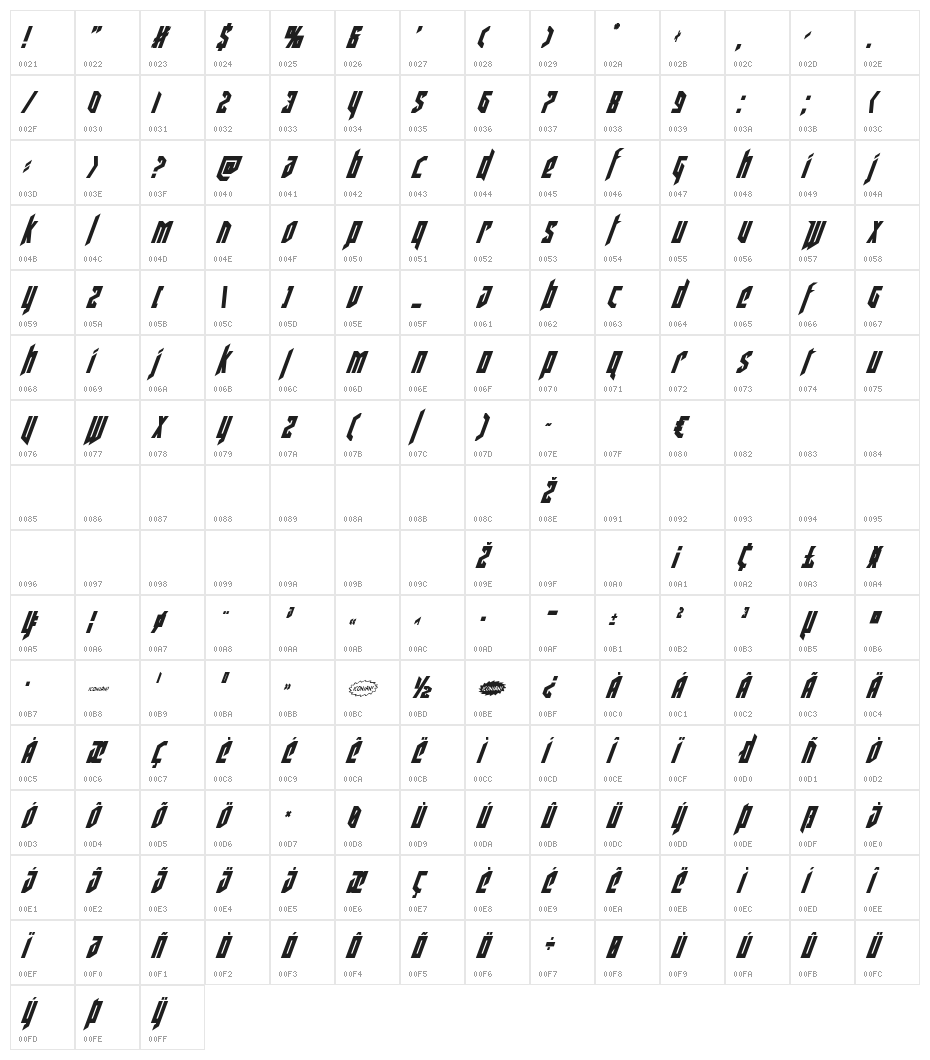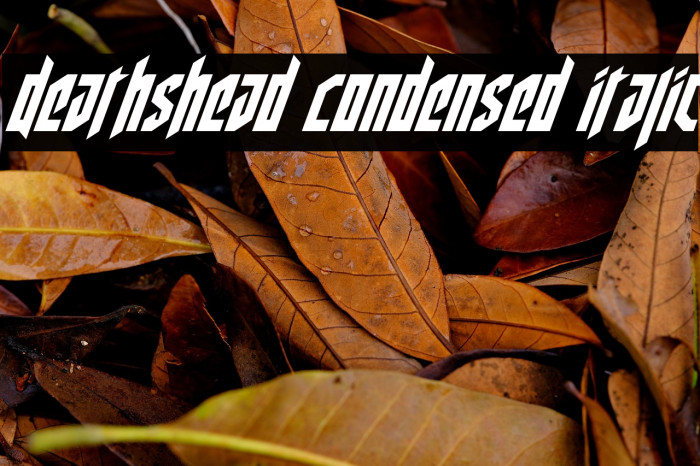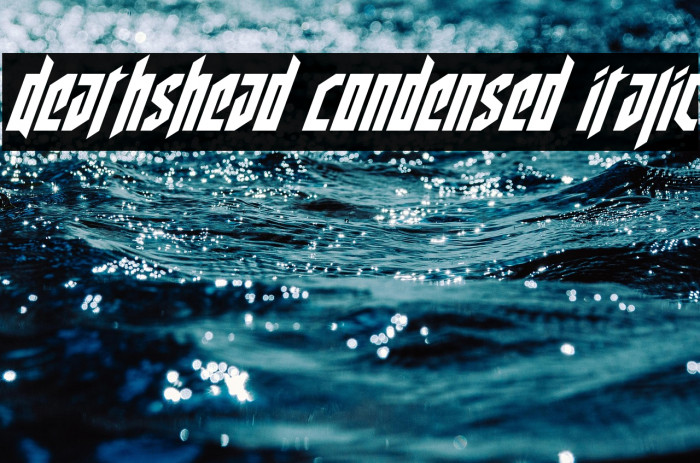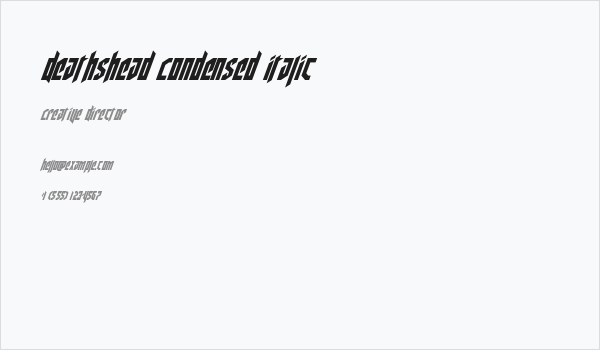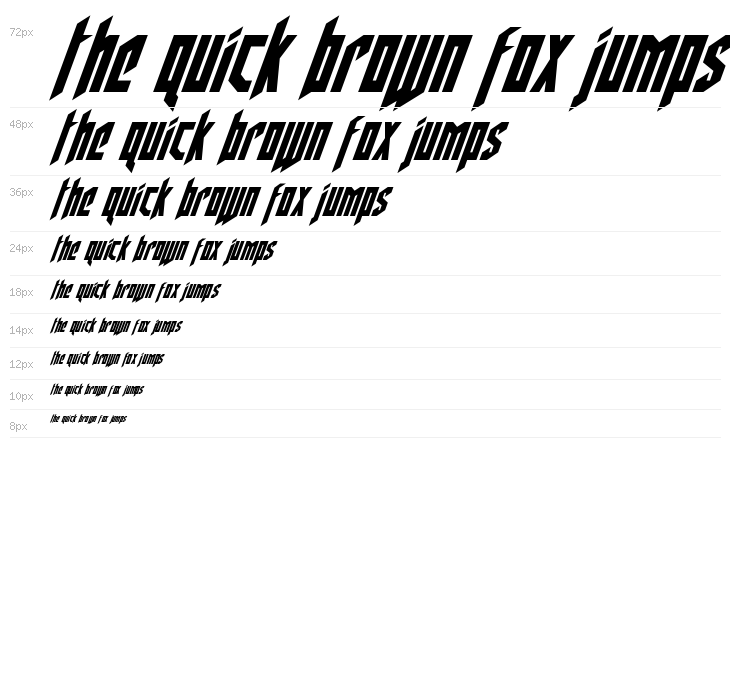
Deathshead Condensed Italic Font
Deathshead Condensed Italic Description
This font features a bold and aggressive style with sharp, angular lines and a condensed form. The italic slant adds a dynamic and forward-moving feel, making it stand out with a sense of urgency and power. The characters are tightly spaced, enhancing the compact and impactful appearance. The high contrast between thick and thin strokes emphasizes its dramatic and edgy aesthetic, suitable for making bold statements. The overall design is modern and assertive, ideal for projects that require a strong visual impact.